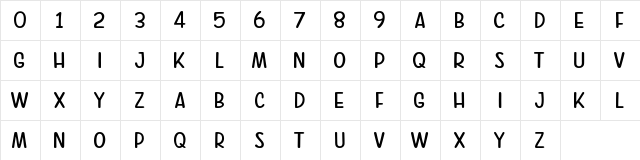
Good Feeling Sans Regular
Design Context for Good Feeling Sans Typeface
Good Feeling Sans takes a measured approach to typography — its balanced proportions and neutral character make it a reliable workhorse for both digital and print work.
Pro Tip: Use Good Feeling Sans in both headline and body roles to test its range before committing to a single application.